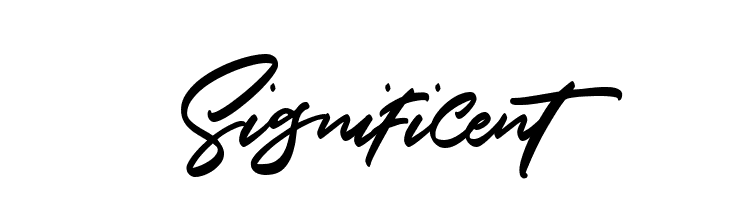
A bold, expressive script font with a dynamic, handwritten style.
A bold, modern cursive font with interconnected letters and a lively appearance.
An elegant, cursive script font with fluid, connected strokes.
A bold, hand-painted style font with dynamic, irregular strokes.
A bold, textured font with a brush stroke appearance and dynamic slant.
A fluid and elegant script font with a handwritten style.
A bold, expressive brush-style font with a dynamic, hand-painted appearance.